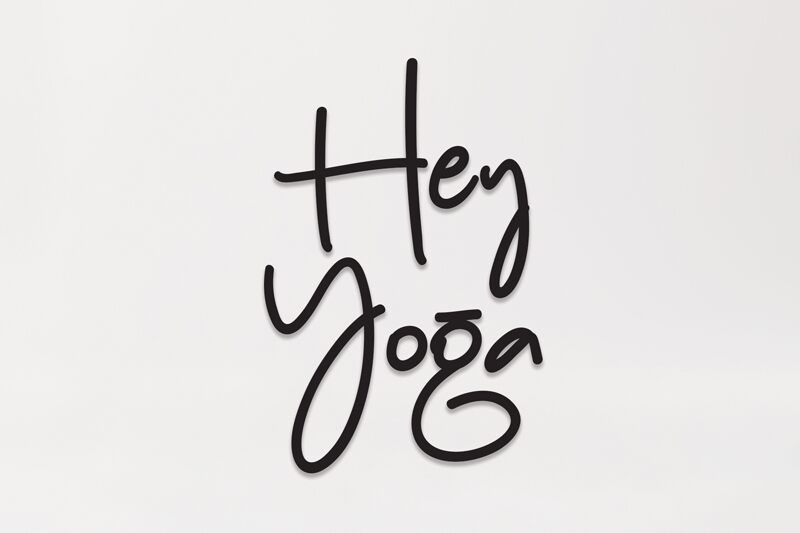
Hey Yoga
Hey Yoga, a lovely handwritten font by Scratchones, adds a touch of elegance and playfulness to your designs.
With its semi-light weight, this font is perfect for creating charming invitations, wedding stationery, and greeting cards. Its flowing curves and delicate strokes bring a sense of warmth and personal touch to any project. Whether you're designing for yoga studios or wellness blogs, Hey Yoga will infuse your work with tranquility and grace.
Unleash your creativity with this enchanting typeface and let it transport your audience to a world of serenity.
The latest style letters are perfect for wall displays, wedding invitations, social media post logos, advertisements, product packaging, product designs, labels, photography, watermarks, invitations, stationery, and any project that requires taste handwriting.